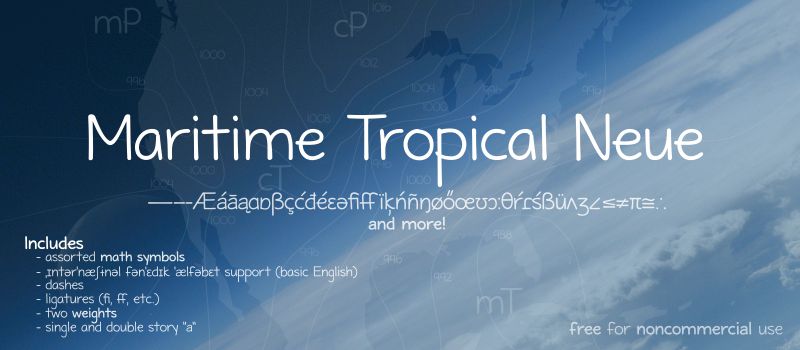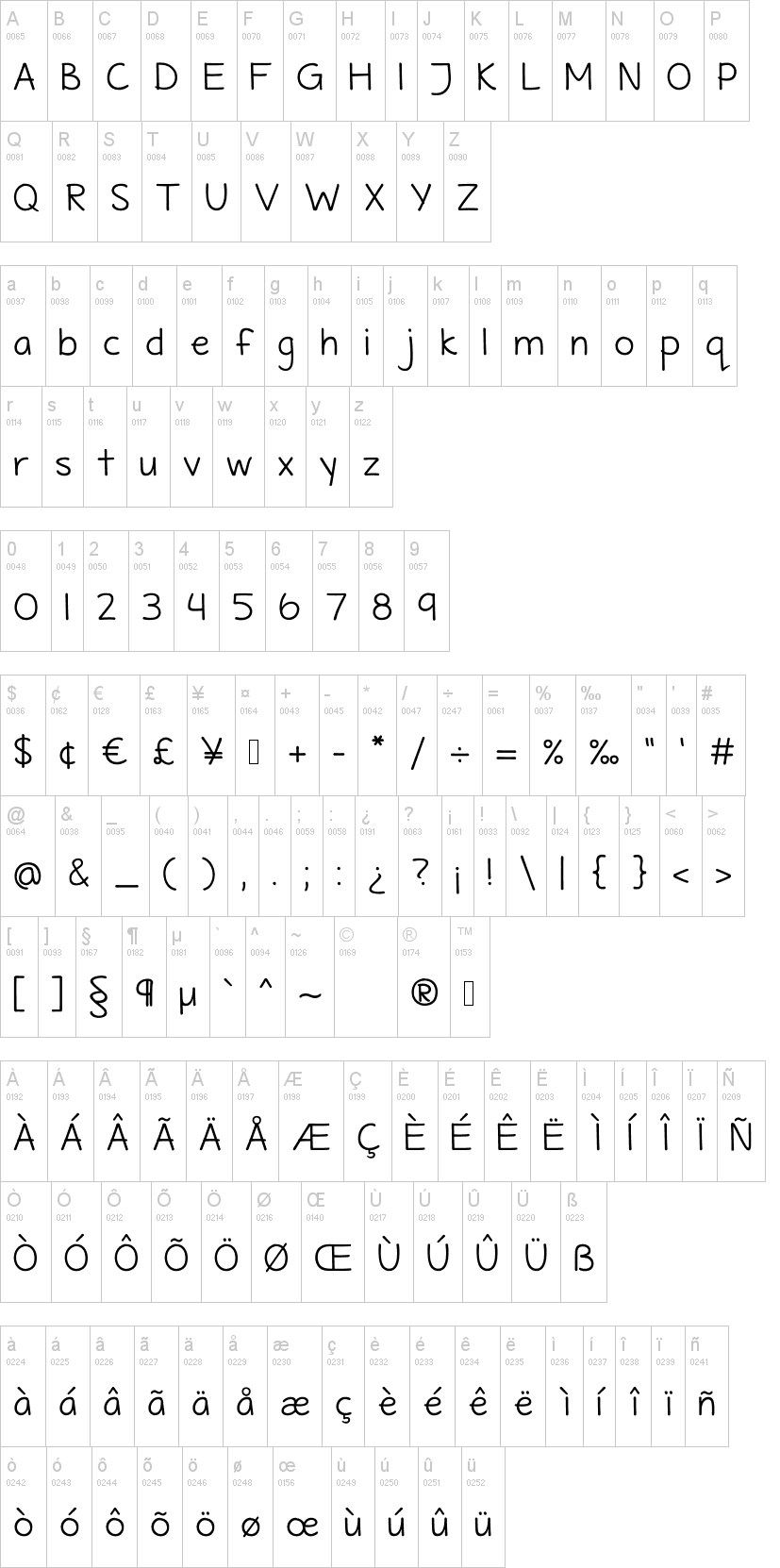
Шрифт Maritime Tropical Neue
The entire Maritime Tropical typeface has been reworked and expandedenough to warrant the release of a completely new fontMaritime Tropical Neue. Better typography, same style.
This release introduces better kerning and spacing, better harmonization, redesigned characters, many math symbols and accented glyphs, English IPA support, dashes, and ligatures such as fi.
UpdateFixed a few remaining kerning issues (r-o), tweaked bold "a".